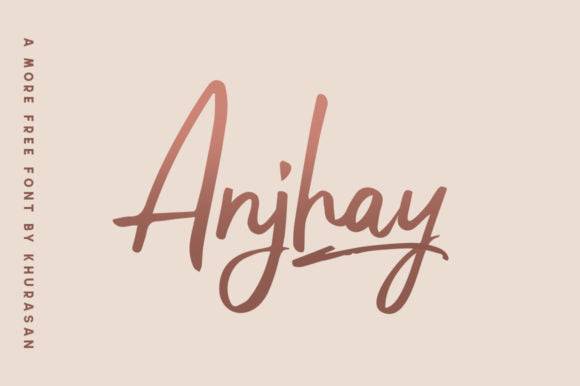
Anjhay Font for Crafting, Logos and Print Projects
This file contains the Anjhay Font, a versatile typeface classified under the font entity category. It blends clean letterforms with artisanal flair, making it ideal for creators needing both personality and precision in their work.
Its design lends itself well to a variety of production applications, from brand development and packaging to handmade printables and custom signage. This font bridges the gap between modern clarity and handcrafted warmth. Whether you are creating invitations for a special occasion or designing labels for your homemade goods, this versatile typeface enhances your projects with elegance and style. Its unique blend of contemporary and rustic elements makes it a perfect choice for those who seek a balance in their designs. As a household harmony font for crafting, it brings a personal touch to every piece, ensuring that your creations resonate with warmth and character.
Anjhay is a reliable choice for digital crafters and business owners who want a unique, scalable font for print and cut use.
- Business branding assets and product labels
- Custom T-shirts and tote bags with vinyl or heat press
- Printable wall art, posters, and greeting cards
- Packaging designs and craft fair merchandise
- Signage for retail or event spaces
- Handcrafted character with scalable clarity
- Works great with print, vinyl, and digital outputs
- Great for both personal projects and branding kits